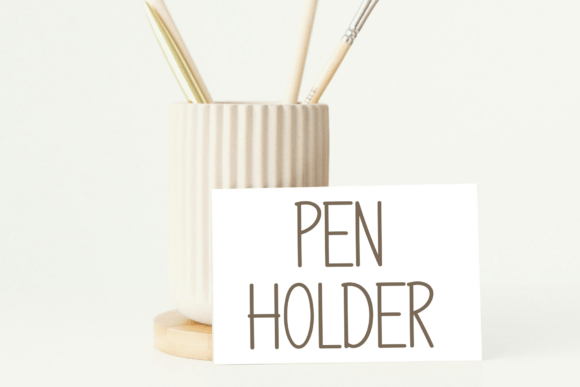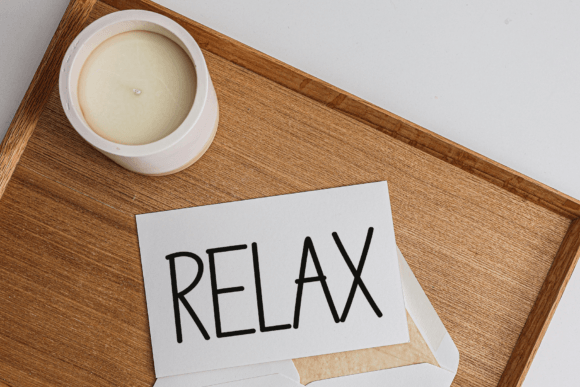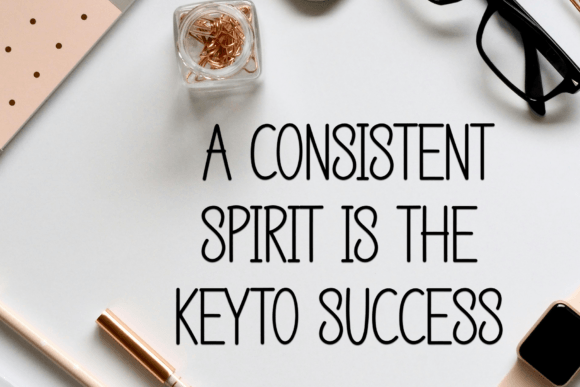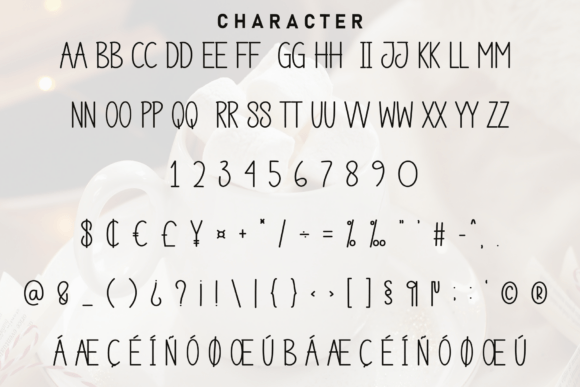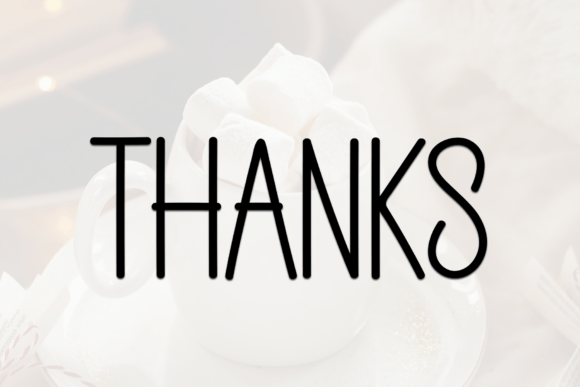
Introducing Blanket Snowing Font: The Cozy Wintery Display Font You Need
As the winter season approaches, designers and crafters start looking for the perfect fonts to add a touch of festivity to their holiday cards, winter crafts, and festive designs. If you’re on the hunt for a font that embodies the softness and playfulness of snowflakes, look no further than the Blanket Snowing Font. This delightful display font is designed to bring a wintery wonderland feel to your projects, and we’re excited to dive into its features and uses.
What is Blanket Snowing Font?
Blanket Snowing Font is a fun and cozy display font that boasts a wintery theme. Its letters are designed to resemble fluffy snowflakes, with a soft and playful appearance that’s sure to capture the essence of the season. The font’s unique design makes it perfect for a variety of projects, from holiday cards and winter crafts to festive designs and more.
Key Features of Blanket Snowing Font
So, what makes Blanket Snowing Font so special? Here are some of its key features:
- Wintery Theme: The font’s wintery theme is perfect for holiday projects, winter crafts, and festive designs.
- Soft and Playful: The letters are designed to look soft and playful, like fluffy snowflakes.
- Display Font: Blanket Snowing Font is a display font, making it perfect for headlines, titles, and other prominent text elements.
- Easy to Read: Despite its playful design, the font is easy to read, making it suitable for a wide range of projects.
Uses for Blanket Snowing Font
Blanket Snowing Font is a versatile font that can be used in a variety of projects, including:
- Holiday Cards: Add a touch of festivity to your holiday cards with this delightful font.
- Winter Crafts: Use the font to create fun and playful winter crafts, such as snowflake decorations or winter-themed signs.
- Festive Designs: Add a wintery touch to your festive designs, such as holiday-themed posters, flyers, or social media graphics.
- Digital Products: Use the font to create digital products, such as printable art, planners, or journals with a wintery theme.
Tips for Using Blanket Snowing Font
To get the most out of Blanket Snowing Font, here are some tips to keep in mind:
- Pair with Other Fonts: Pair the font with other winter-themed fonts or complementary fonts to create a unique and visually appealing design.
- Experiment with Colors: Try out different color schemes, such as icy blues and whites or warm reds and greens, to match your project’s theme.
- Use it Sparingly: While the font is playful and fun, it’s best to use it sparingly to avoid overwhelming your design.
Blanket Snowing Font is a delightful display font that’s perfect for adding a touch of winter wonderland magic to your projects. With its soft and playful design, wintery theme, and versatility, it’s a must-have for designers and crafters looking to create festive and fun designs. Whether you’re creating holiday cards, winter crafts, or festive designs, this font is sure to bring a smile to your face and a touch of coziness to your projects.